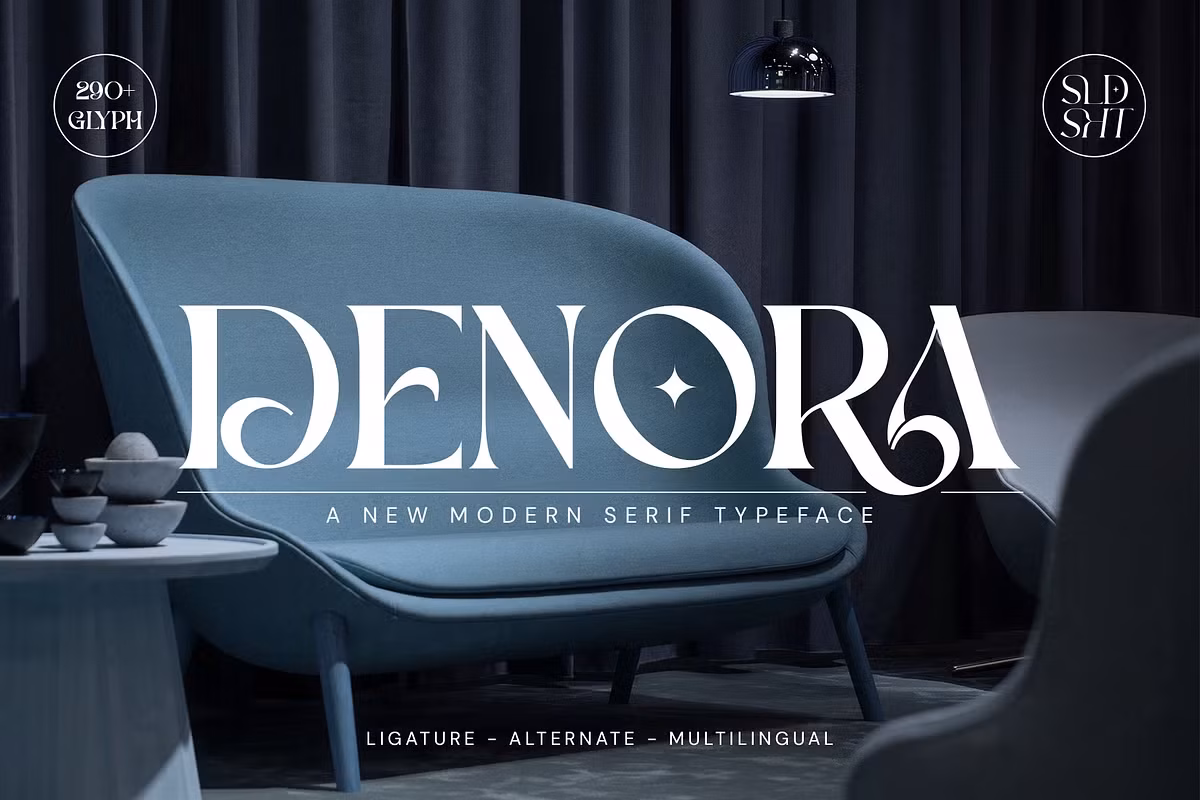
Denora Modern Serif Font Free Download
Denora Modern Serif Font Free Download is a sophisticated and contemporary typeface that combines classic serif features with a modern twist. Perfect for branding, logos, websites, editorial designs, and more, Denora’s clean lines and timeless appeal make it an ideal choice for projects that require a professional, elegant look. Its versatility ensures it works seamlessly across both digital and print media.